G-Type
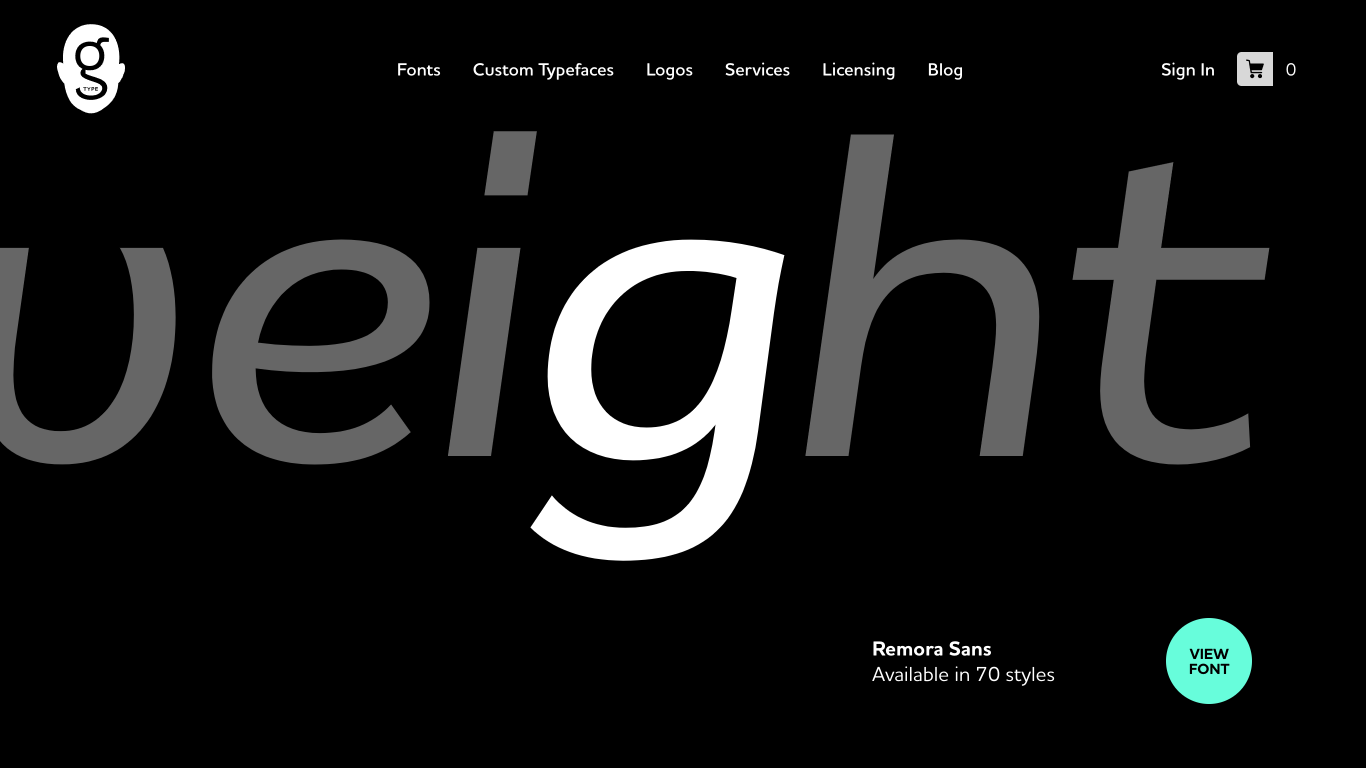
United Kingdom
1999
G-Type is a digital font foundry and type design studio founded by Nick Cooke in 1999. Known for custom fonts and logo design, G-Type has worked with global brands like Vauxhall, Sun Life Financial, Walmart, and The Mail on Sunday. Its commercial fonts are also used by companies such as NBC and Cadbury. Cooke’s Chevin typeface distinctively brands the Royal Mail and is widely seen across UK Post Offices.